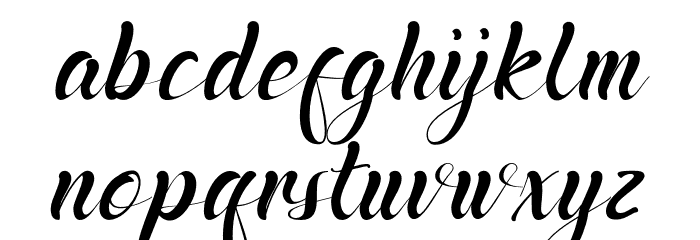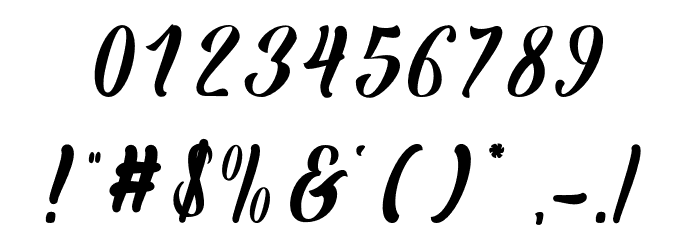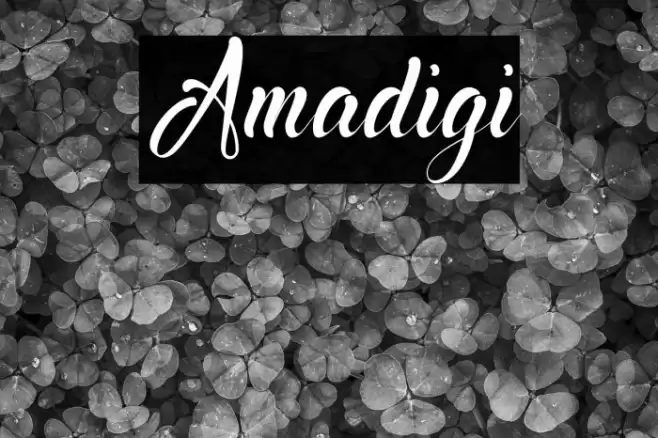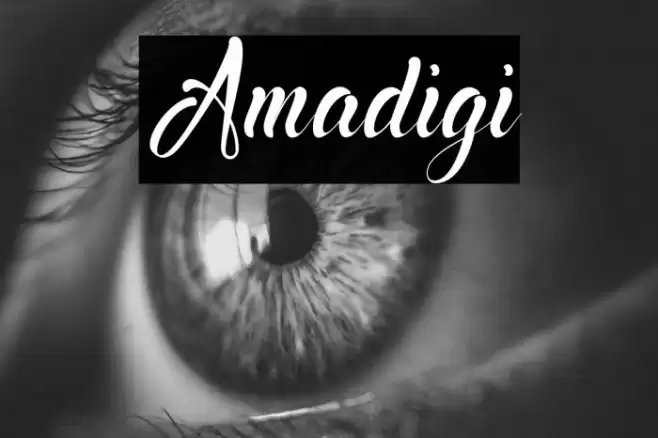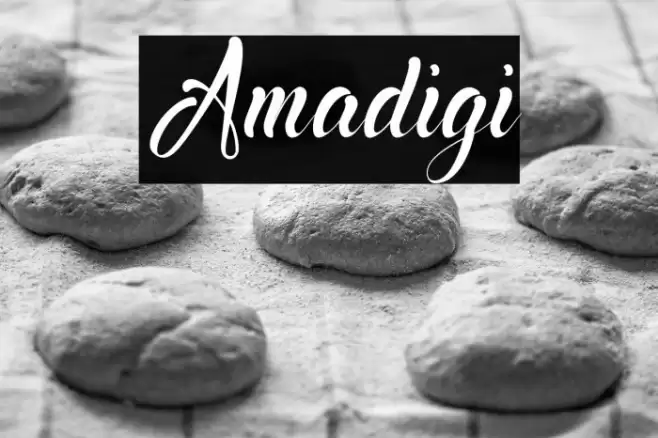
Amadigi Font
This elegant script font features flowing, cursive letters with a sophisticated and artistic flair. The uppercase letters are particularly ornate, with sweeping lines and flourishes that add a touch of luxury and refinement. The lowercase letters maintain a consistent style, offering a harmonious blend of curves and loops. The numerals are equally stylish, complementing the overall aesthetic. Special characters are designed with the same attention to detail, making this font suitable for a variety of decorative purposes.
An elegant and ornate script font with flowing cursive letters.
- Proposed Projects: Ideal for wedding invitations, luxury branding, elegant stationery, and decorative headlines.
- Use Case: Logos, Headlines, Invitations